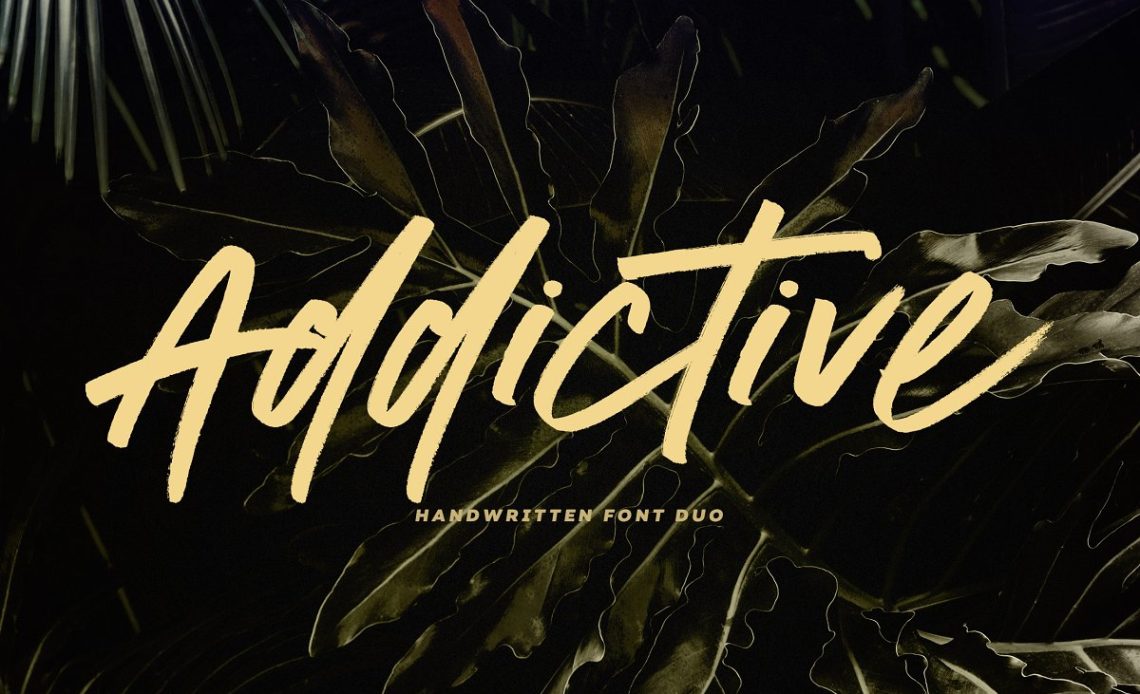
Introducing Addictive, the best font duo for card design created by Michael Mervinetsky. This sophisticated and contemporary hand-made script font is perfect for anyone looking to create stunning hand-lettering designs with personal charms and character.
Addictive font duo is a powerful combination of two fonts: Addictive and Addictive Caps. Addictive is a high-quality script font that includes upper and lowercase characters, numerals, and a wide range of punctuation. It also comes with OpenType features such as Ligatures and Alternates. Addictive Caps, on the other hand, is a bold brush font that creates a perfect pairing contrast with Addictive Script. Both fonts include multilingual support for English, Italian, French, Polish, German, Swedish, Spanish, Dutch, Portuguese, Norwegian, Malaya, Indonesian, Finnish, and Filipino.
Designed to feel comfortable with various projects including advertising, campaigns, poster design, wedding, branding, logo, fashion, magazines, and social media, Addictive font duo is perfect for many different projects. The fonts are available in TTF and OTF files for easy installation and access to all OpenType features.
With Addictive font duo, you can take your designs to the next level and stand out from the crowd. Whether you're creating stunning wedding invitations, eye-catching posters, or unique social media graphics, Addictive font duo will help you achieve your desired result.